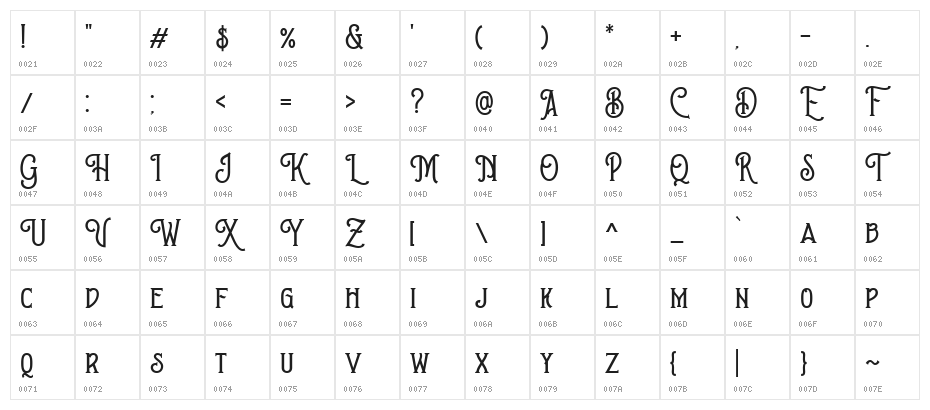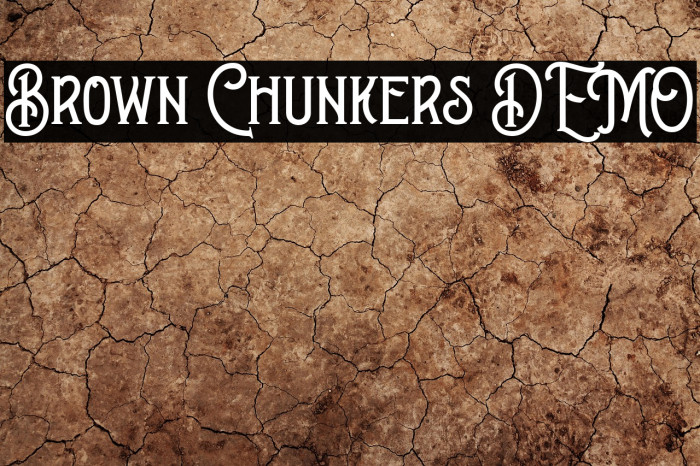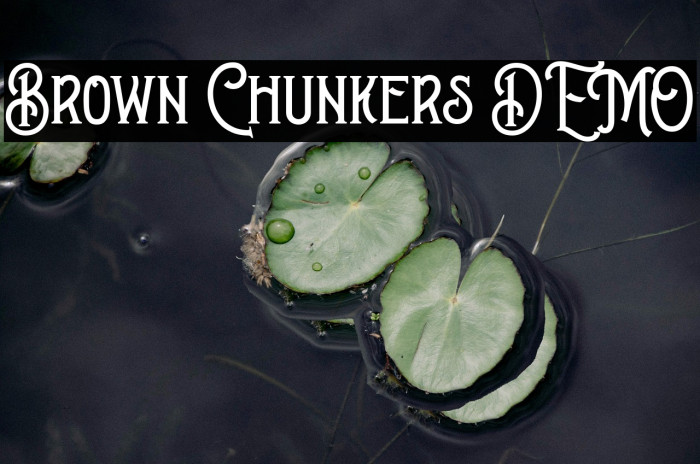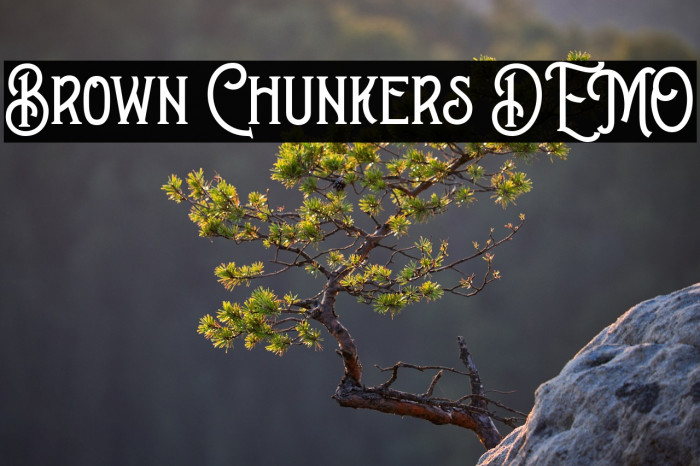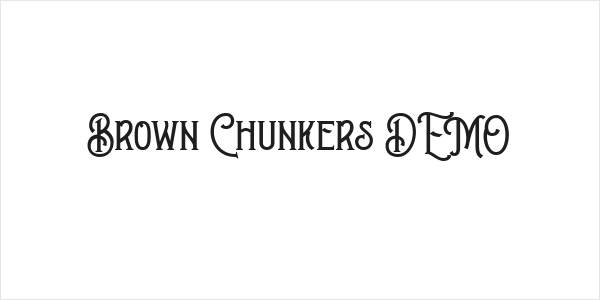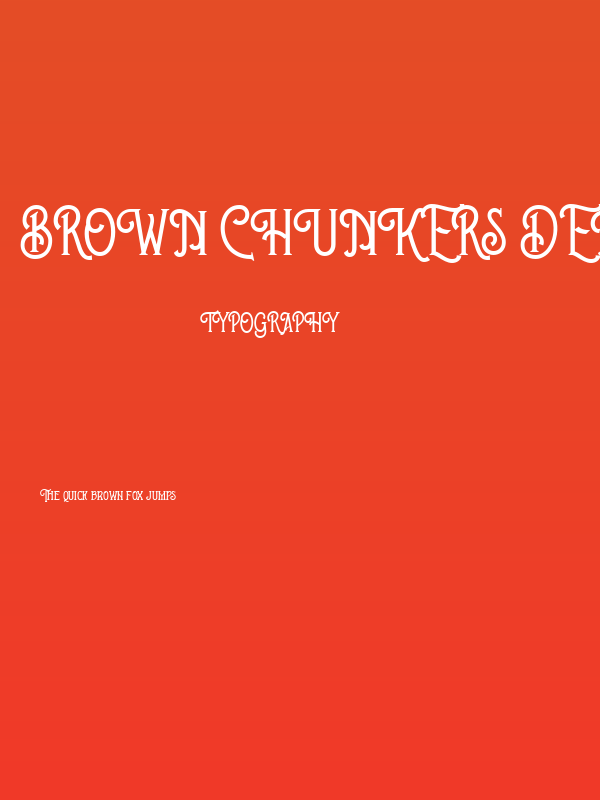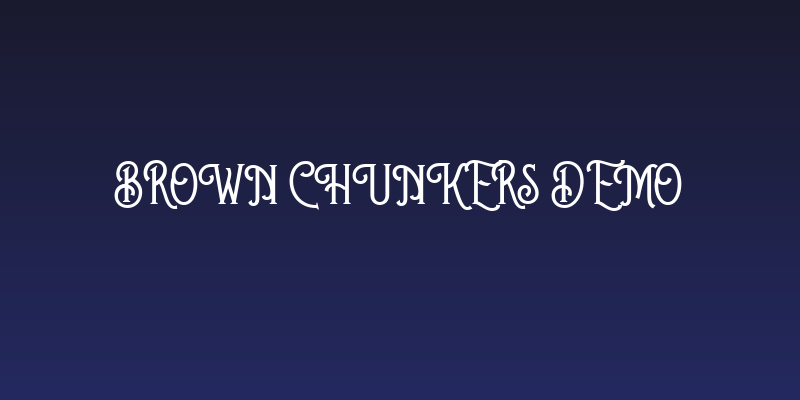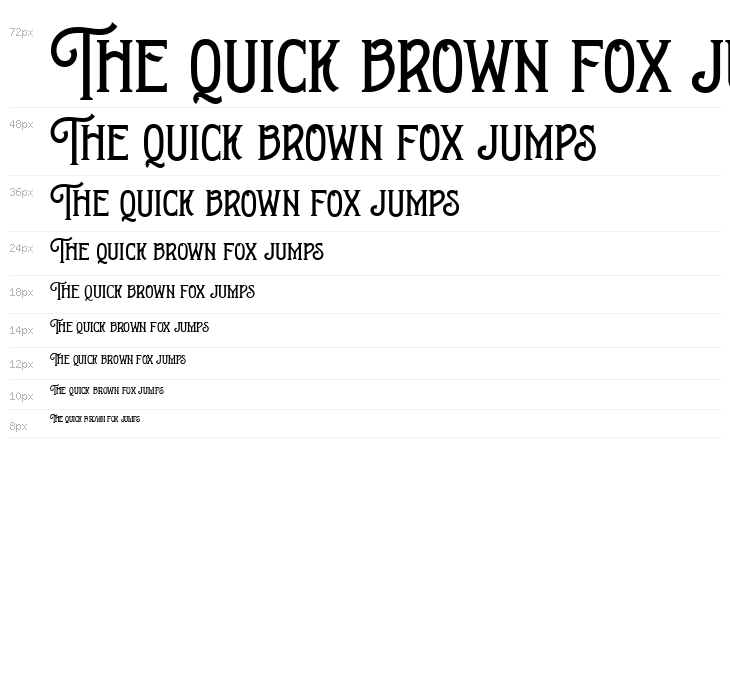
Brown Chunkers DEMO Font
Brown Chunkers DEMO Description
This font features a bold and decorative style with a unique flair. Each character is designed with a playful, chunky appearance, incorporating both thick and thin strokes that create a dynamic visual impact. The uppercase letters have a whimsical, almost cartoonish quality, while the lowercase letters maintain a consistent style that complements the overall design. The numbers and special characters follow the same aesthetic, ensuring a cohesive look across all text elements. This font is ideal for projects that require a fun and eye-catching typeface, such as children's books, posters, or branding materials that aim to convey a sense of creativity and playfulness.